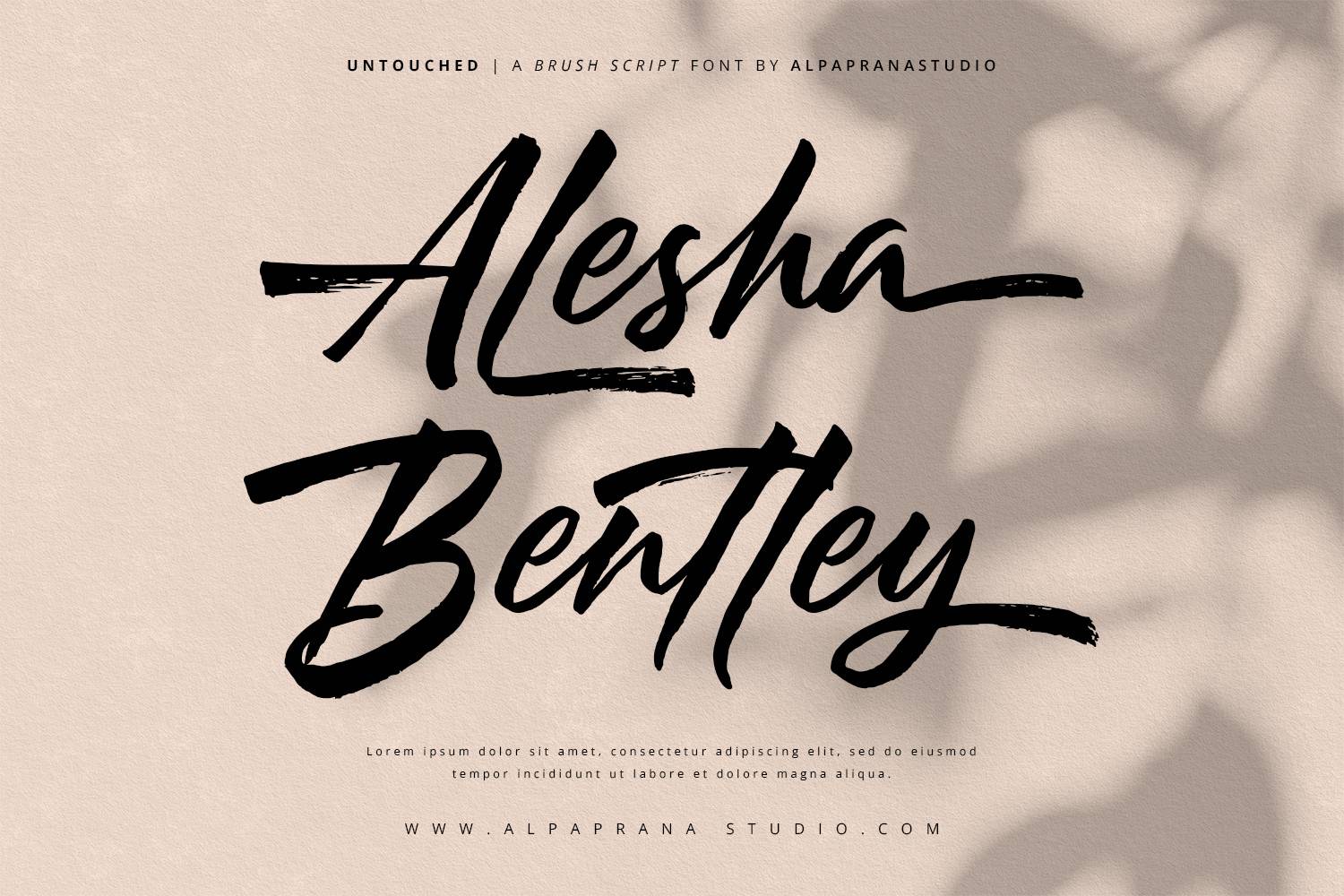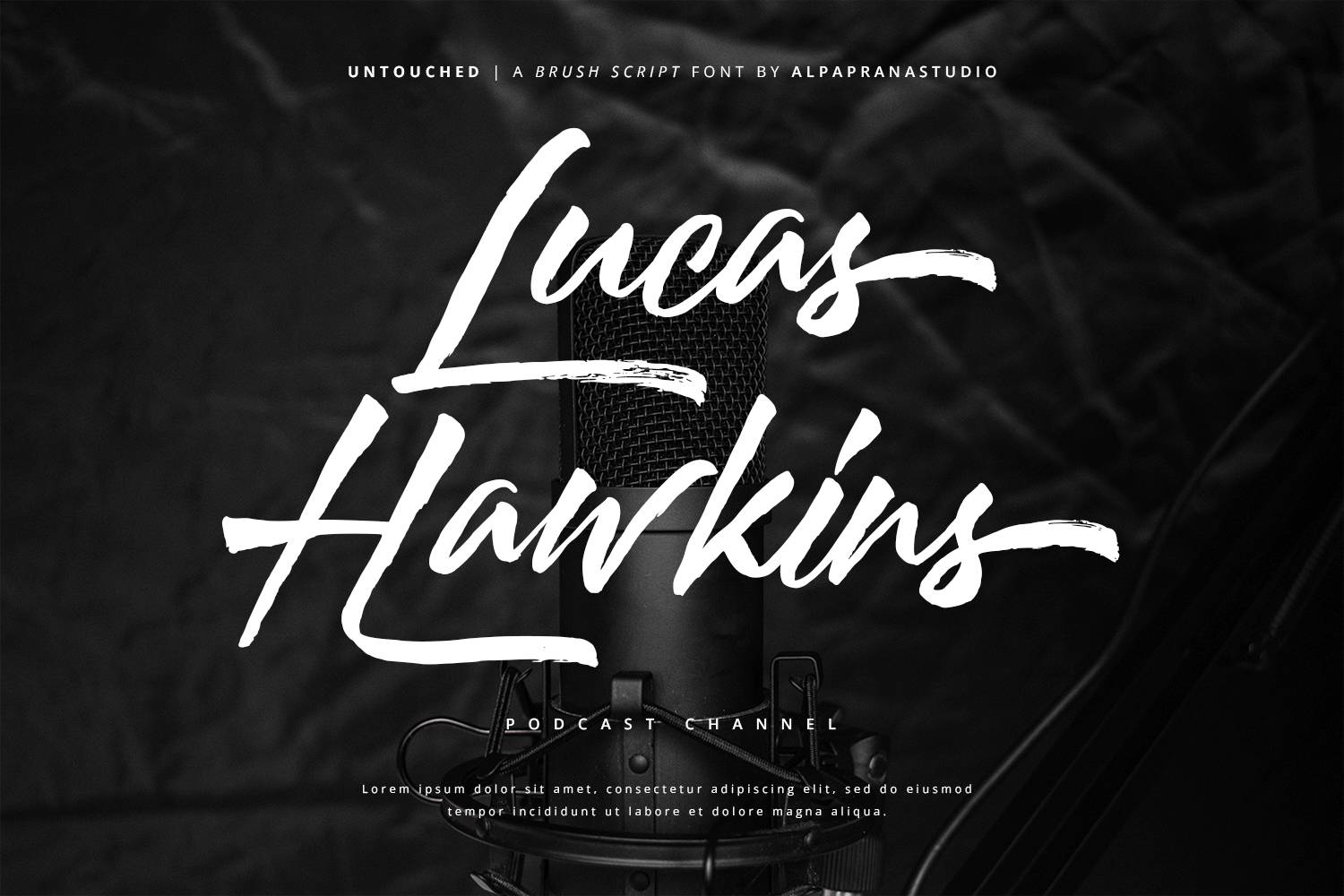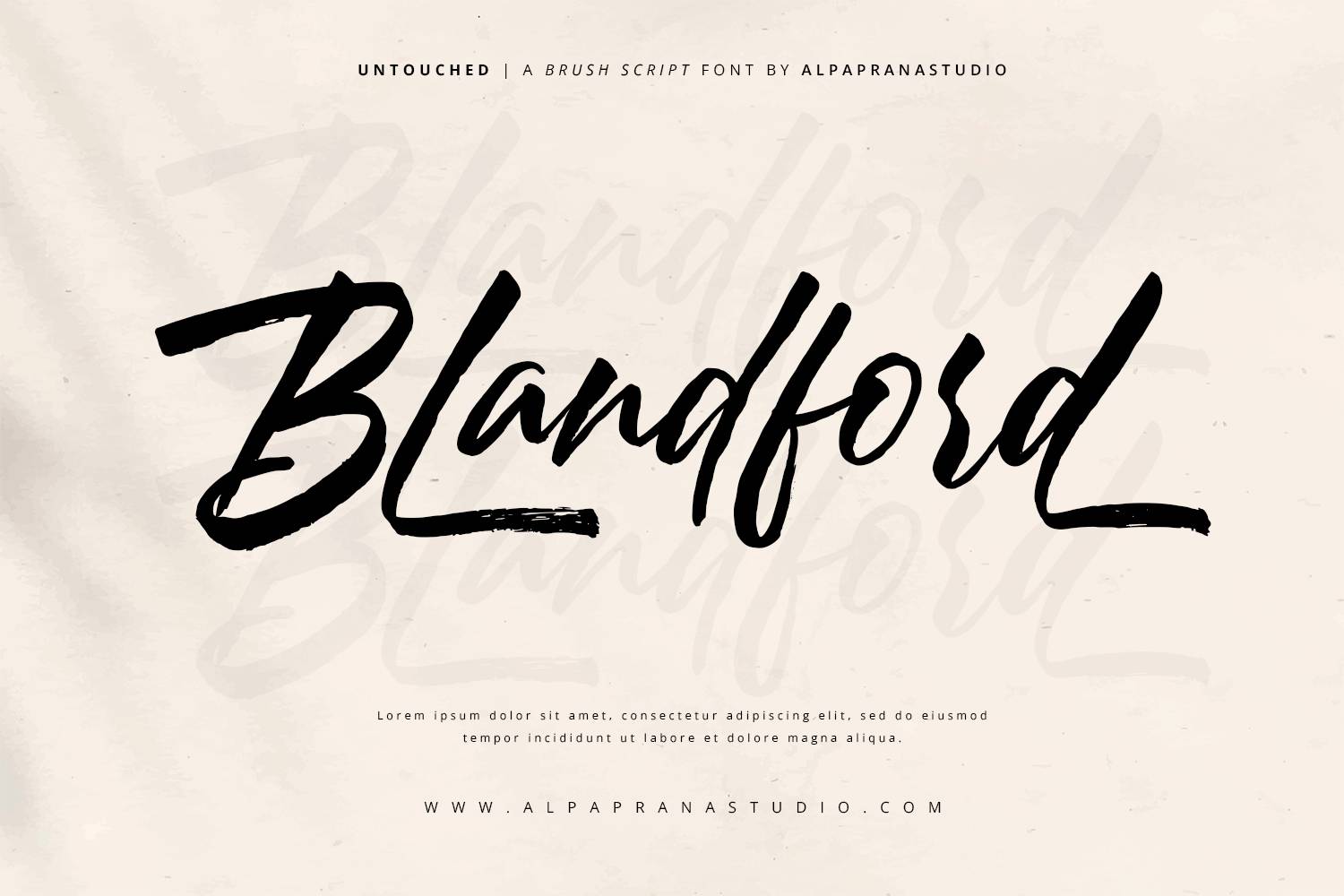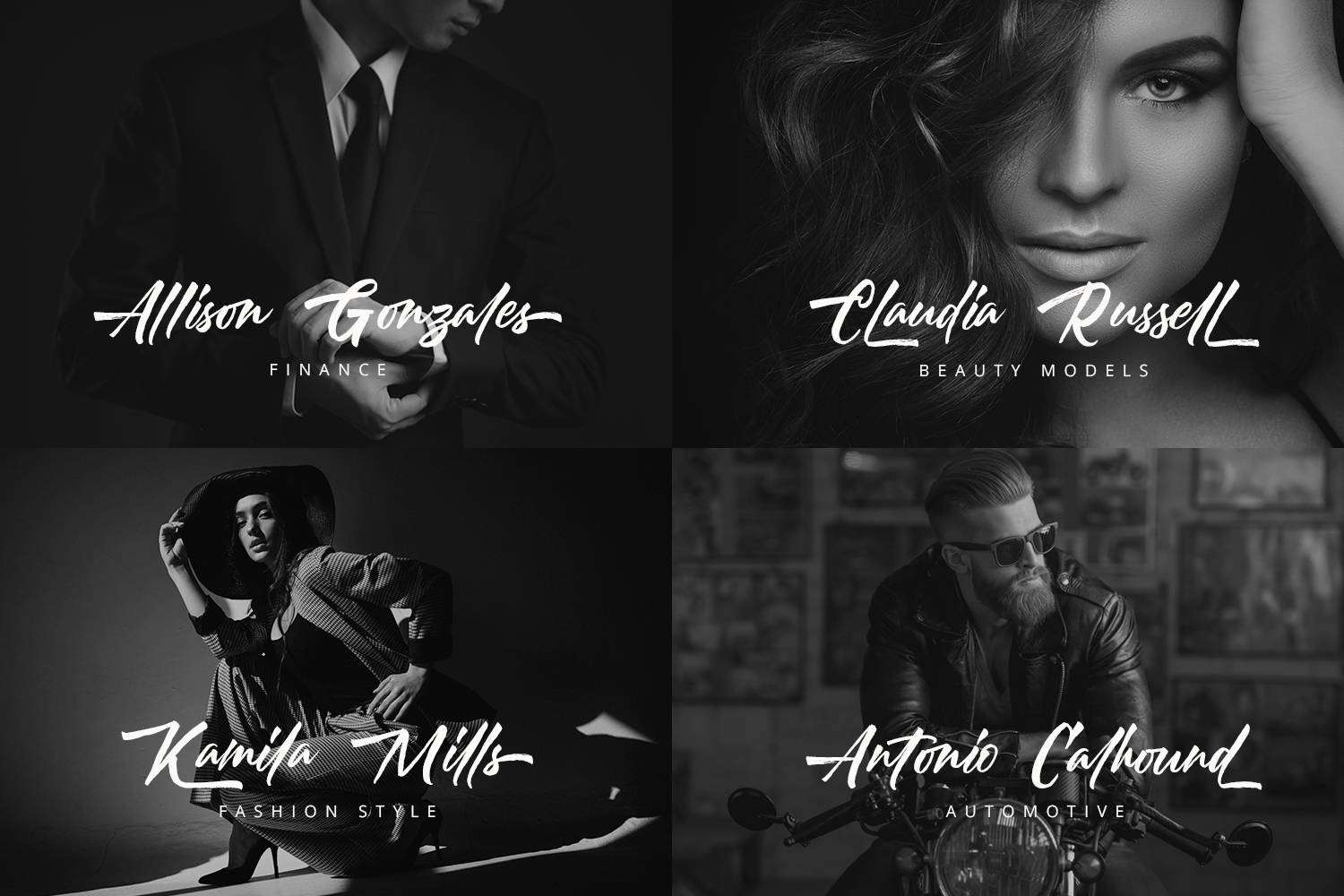
Untouched Font is a dynamic, brush-style script that captures a lively and personal handwritten feel, with bold strokes and fluid, irregular lines that add a spontaneous, artistic touch. Its energetic character makes it ideal for creative branding, posters, and expressive headlines where a casual yet impactful impression is desired. This font works well for projects needing a modern, approachable, and authentic vibe without sacrificing clarity.
Untouched Font